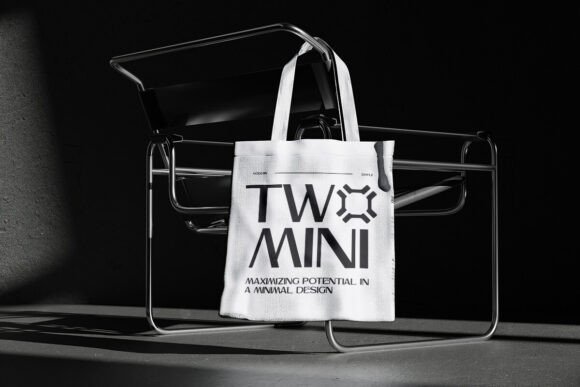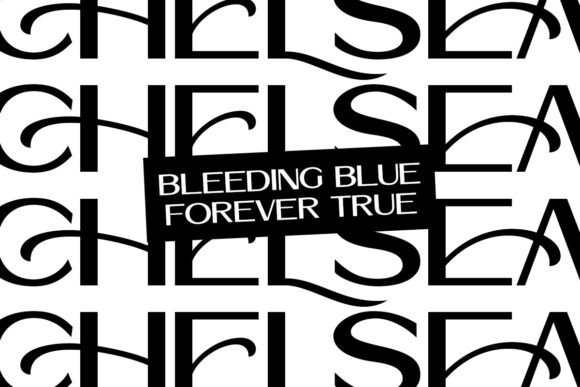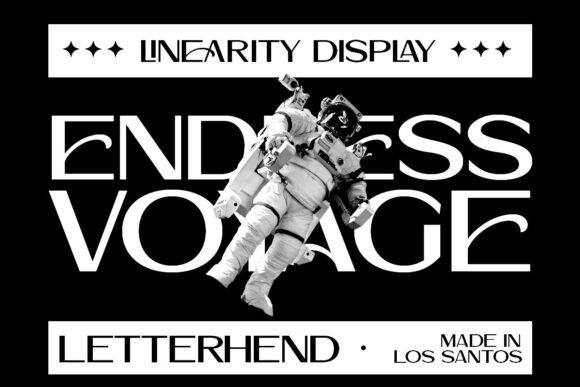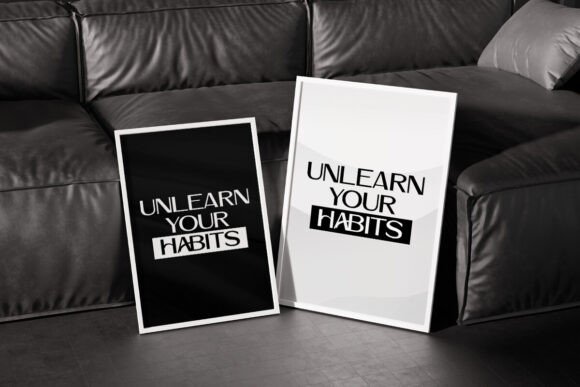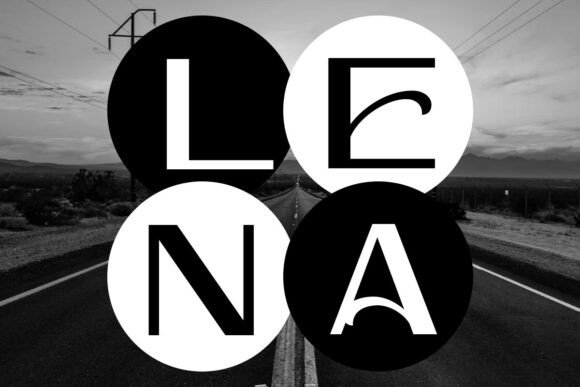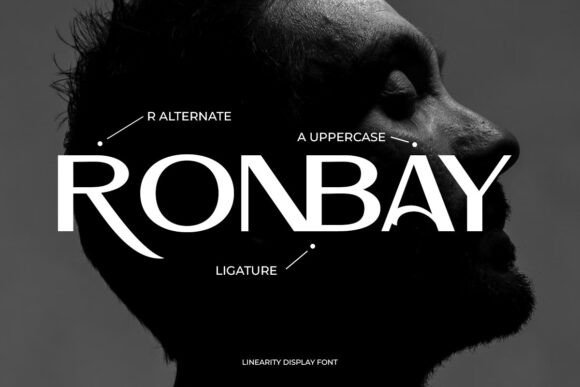
Introduction to Linearity Font
Linearity is a sleek and contemporary sans-serif font designed specifically for logo design and branding.
Its sharp edges and geometric forms convey a sense of modernity, professionalism, and minimalism With clean lines and subtle creative details, itโs the perfect choice for creating impactful logos, futuristic designs, technology-driven projects, and elegant headlines.
Key Features of Linearity Font